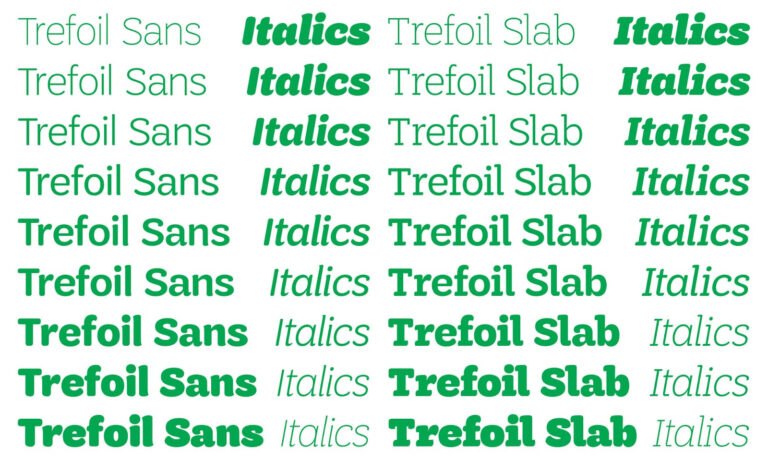
girl scout font: A Typeface that Represents Empowerment and Unity
Fonts play a significant role in visual communication, shaping the way we perceive and interpret written information. One such font that has gained popularity in recent years is the Girl Scout Font. This unique typeface not only serves as a visual representation of the Girl Scouts organization but also embodies the values of empowerment, unity, and inclusivity.
The Girl Scouts organization, founded in 1912 by Juliette Gordon Low, aims to empower girls and young women, fostering their leadership skills and promoting community engagement. The Girl Scout Font, introduced in 2010, was designed to reflect these core values and evoke a sense of pride and unity among its members.
The font itself is characterized by clean lines, rounded edges, and a slightly bold appearance. Its simplicity and legibility make it suitable for various applications, from print materials to digital platforms. The Girl Scout Font has become synonymous with the organization, as it is used in official publications, marketing materials, and even on the iconic Girl Scouts cookie boxes.
What sets the Girl Scout Font apart is not just its visual appeal, but the symbolism it carries. The font represents empowerment by embodying the strength and confidence that the Girl Scouts instill in their members. Its boldness represents the courage to take on challenges and make a difference in the world.
Moreover, the Girl Scout Font promotes unity and inclusivity. Its rounded edges signify a sense of community and partnership, emphasizing the value of collaboration and working together. This typeface aims to create a sense of belonging and acceptance for all Girl Scouts, regardless of their background or abilities.
Beyond its significance within the organization, the Girl Scout Font has also made its way into the design world. Designers and creatives have started to recognize its unique aesthetic qualities and have incorporated it into various projects. Its versatility allows it to be used in a wide range of contexts, from branding to editorial design, giving a fresh and empowering touch to any visual communication.
In conclusion, the Girl Scout Font is not just a typeface; it represents the values and mission of the Girl Scouts organization. Its clean lines, boldness, and rounded edges symbolize empowerment, unity, and inclusivity. Through this font, the Girl Scouts aim to inspire and motivate their members while creating a visual identity that is instantly recognizable and memorable. As the Girl Scout Font continues to gain recognition and popularity, it serves as a reminder of the importance of empowering girls and advocating for a more inclusive and united world.